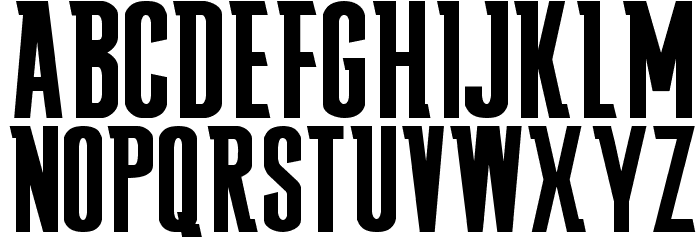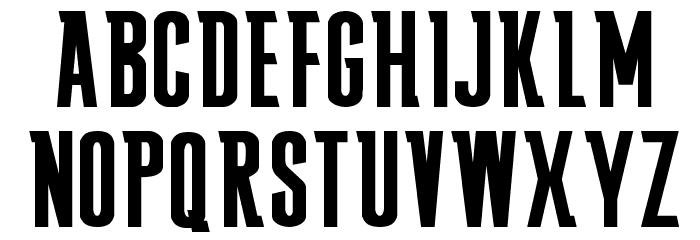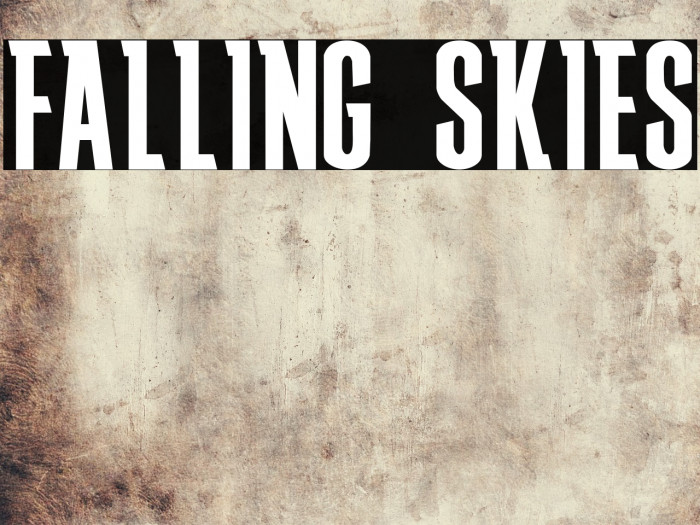
FALLING SKIES Font
This font features a bold and commanding presence with its tall, narrow letterforms and sharp, angular serifs. The uppercase letters exhibit a strong vertical emphasis, while the lowercase letters maintain a consistent height, contributing to a cohesive and structured appearance. The numerals are equally bold, ensuring readability and impact. Special characters are creatively designed, adding a unique flair to the overall style. The font's high contrast between thick and thin strokes enhances its dramatic and eye-catching quality, making it suitable for attention-grabbing headlines and display purposes.
A bold, high-contrast font with tall, narrow letterforms and sharp serifs.
- Proposed Projects: Ideal for poster design, branding, and any project requiring a strong visual impact.
- Category: Serif
- Width: Condensed